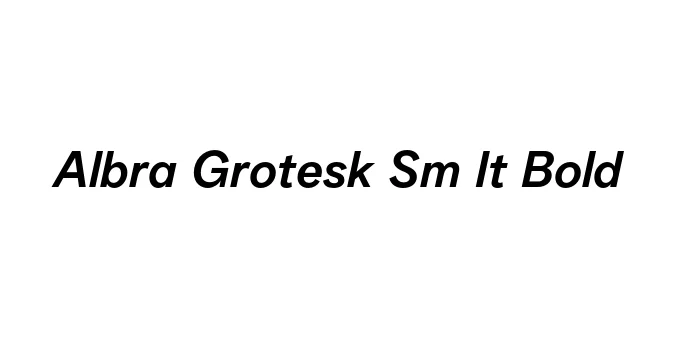
Albra Grotesk Sm It Bold
Designed by BumbumType
Albra Grotesk Sm It Bold is a sophisticated contemporary sans-serif typeface that belongs to the expansive Albra collection. This variant, which features a distinctive semi-italic slant, is designed to bridge the gap between timeless editorial elegance and high-performance digital functionality. It provides a unique visual rhythm to text, making it an excellent choice for designers looking to inject authority and a modern edge into their typographic layouts.
Developed by the foundry BumbumType, this typeface family is celebrated for its refined character and versatile application across various media. The Bold Semi-Italic weight offers a strong visual hierarchy, ensuring that headlines and brand messages stand out with clarity. Its construction balances geometric precision with subtle humanist touches, resulting in a typeface that is as legible as it is aesthetically pleasing for both print and screen environments.
Albra Grotesk Sm It Bold Best Uses
Ideal for high-impact headlines and pull quotes in luxury magazines.
Perfect for creating strong, recognizable logos and professional branding materials.
Provides a clean and modern look for user interface headers and call-to-action buttons.
Excellent for posters and digital ads that require a bold, slanted typographic emphasis.